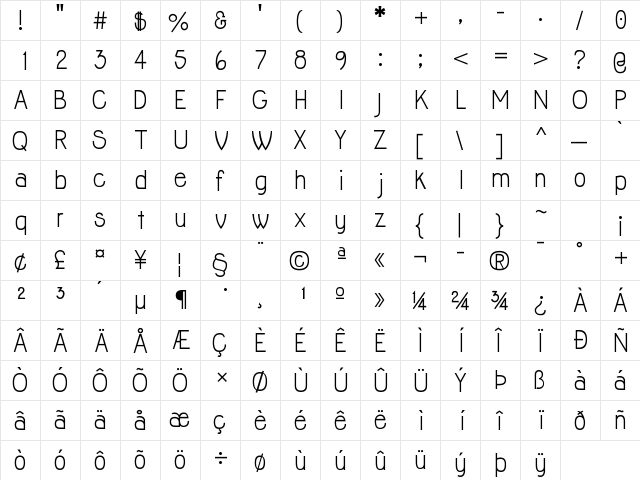
Jolly Regular
| Designer | Lauren Thompson |
Design Context for Jolly Typeface
Jolly offers clean, dependable letterforms without strong stylistic allegiance, making it a practical choice for designers who need flexibility.
Pro Tip: Pair Jolly with a font of contrasting weight or personality to build a more expressive typographic hierarchy.